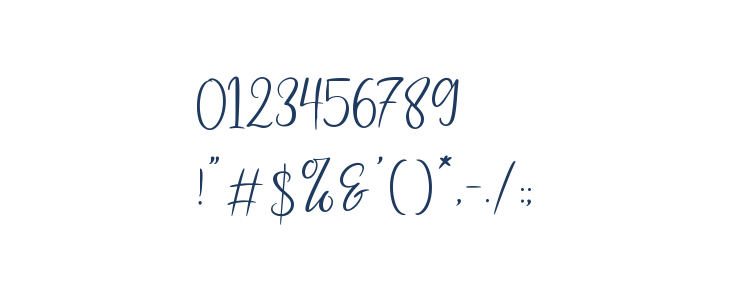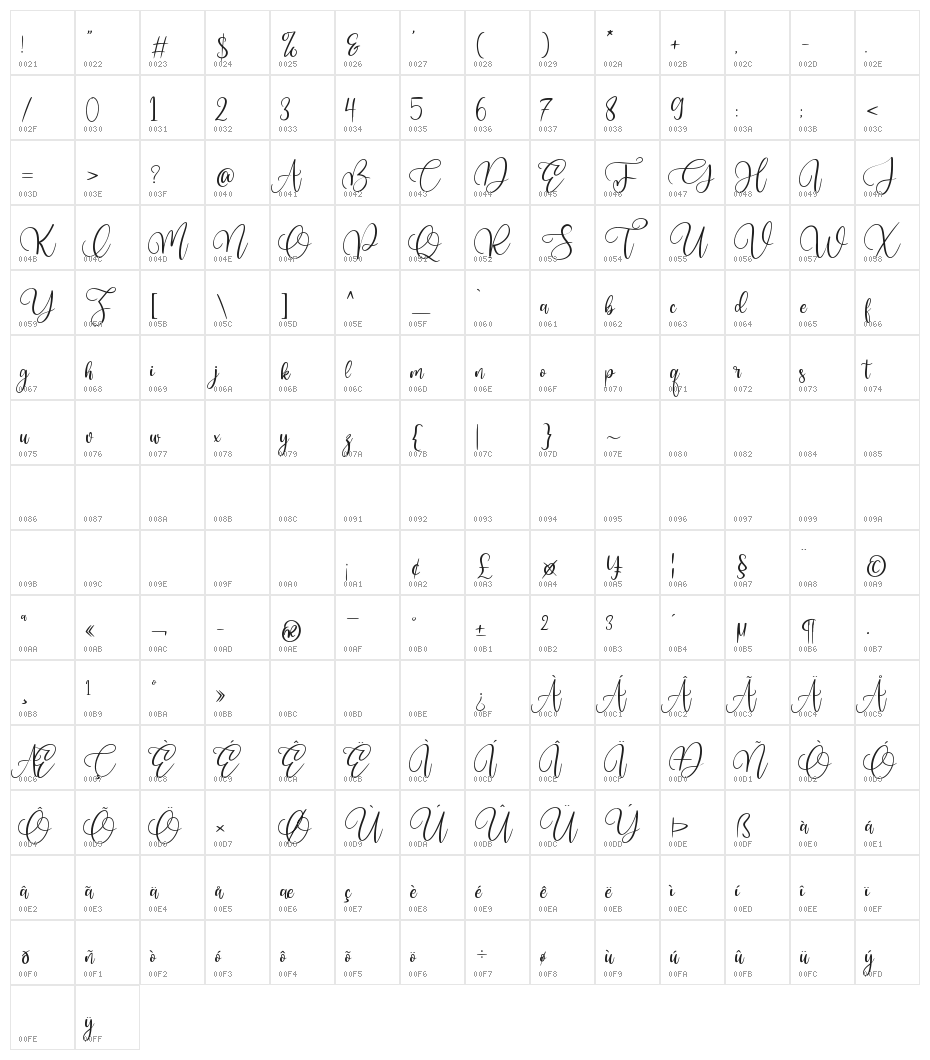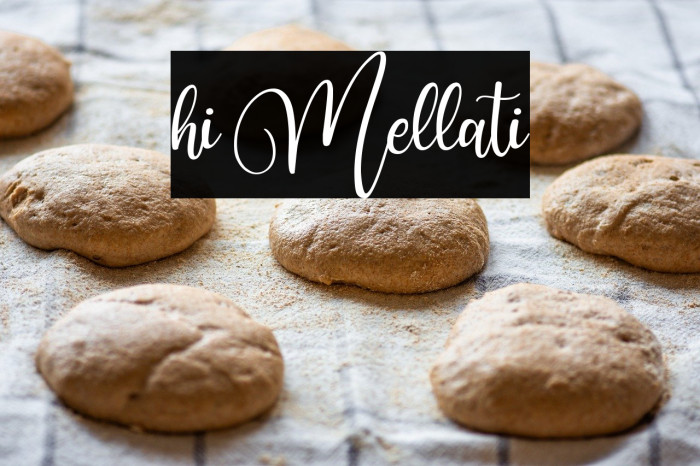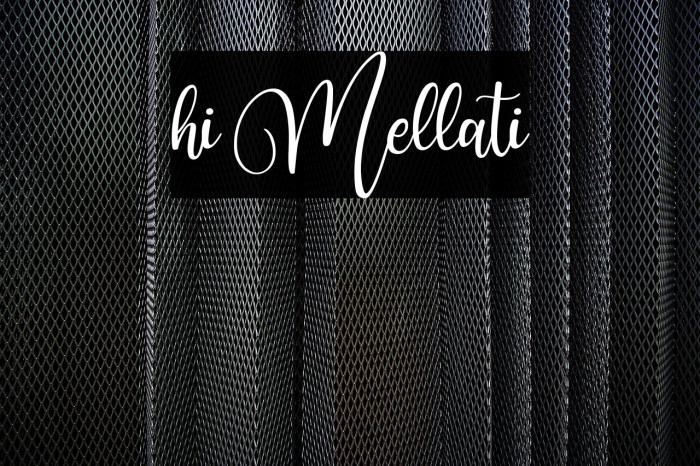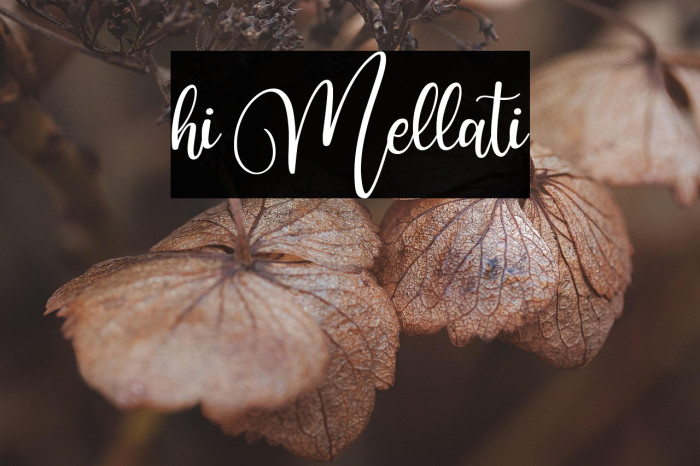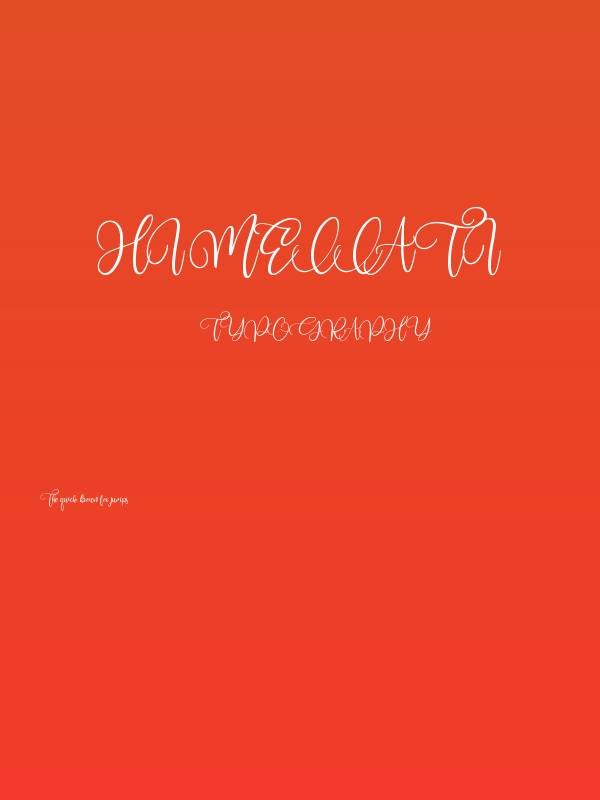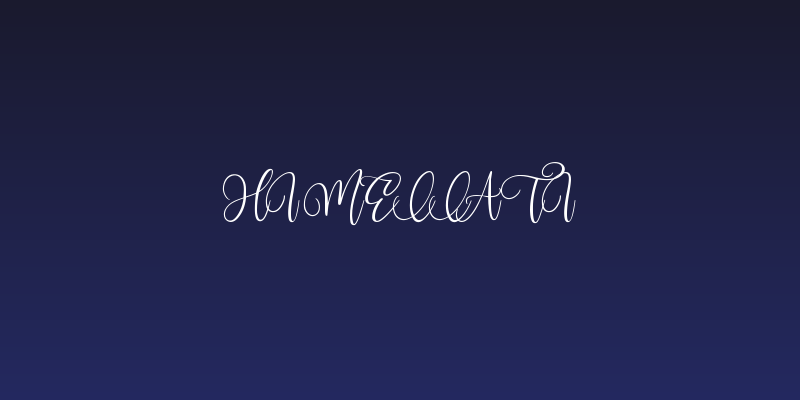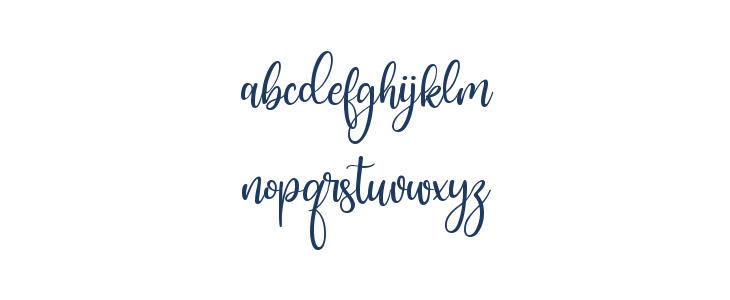
hi Mellati Font
hi Mellati Description
This font features an elegant and flowing script style, characterized by its smooth, cursive letterforms that exude a sense of sophistication and grace. The uppercase letters are particularly ornate, with intricate loops and swirls that add a decorative flair. The lowercase letters maintain a consistent flow, making them highly legible despite their decorative nature. The numerals are styled to match the script's elegance, with a slight slant that complements the overall design. Special characters are thoughtfully integrated, maintaining the font's cohesive aesthetic. This font is ideal for projects that require a touch of elegance and personality, such as wedding invitations, branding, and high-end product packaging.
Overall StyleElegant, Decorative
Use CaseLogos, Invitations, Branding
Proposed ProjectsWedding invitations, branding, high-end product packaging, greeting cards.